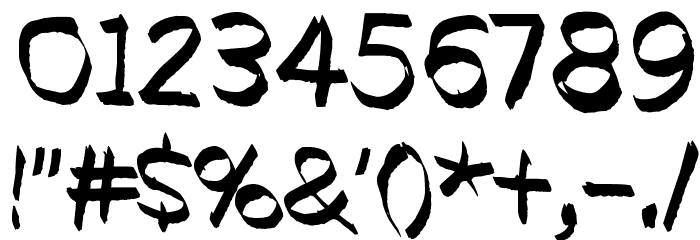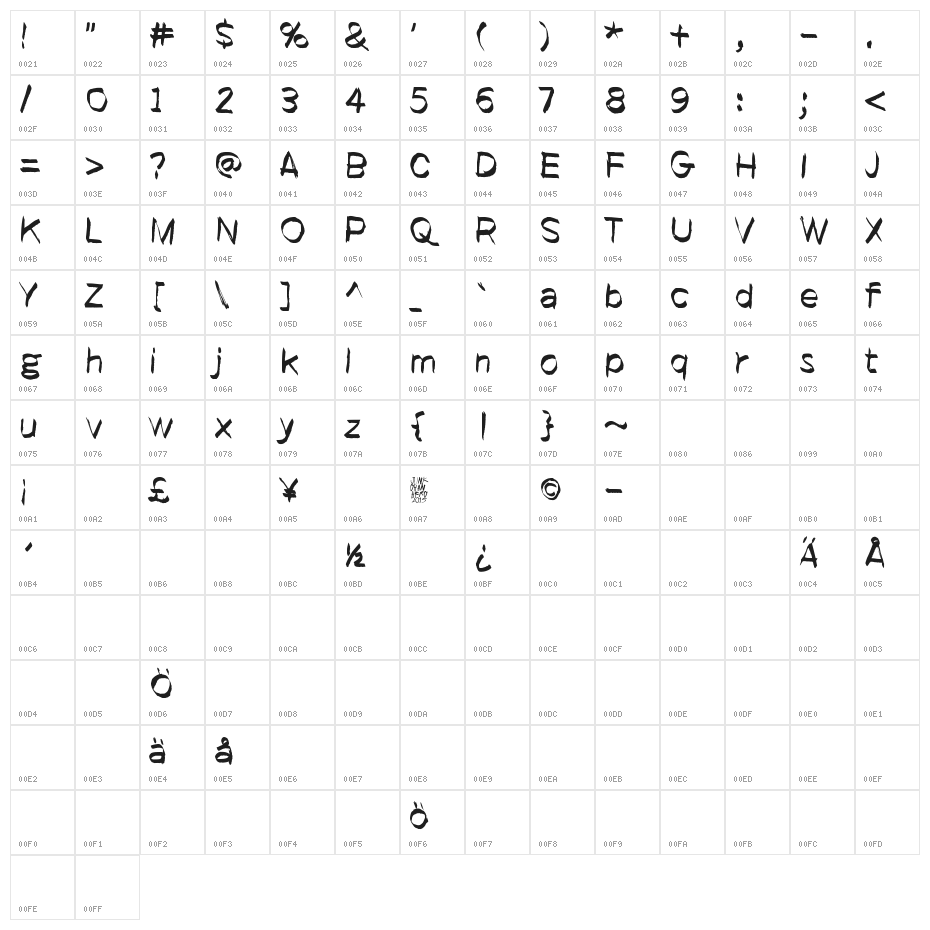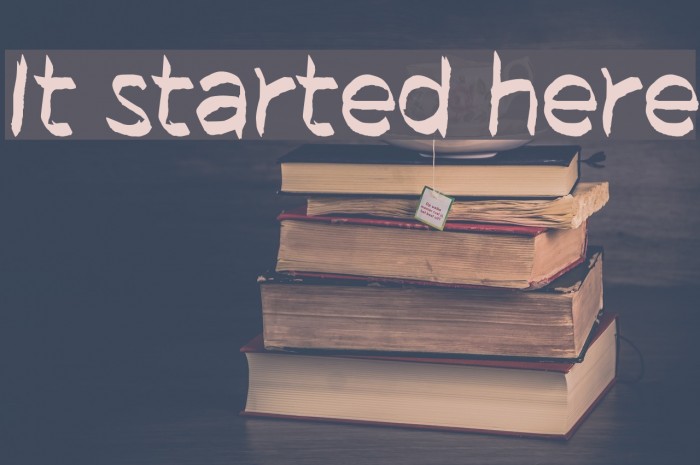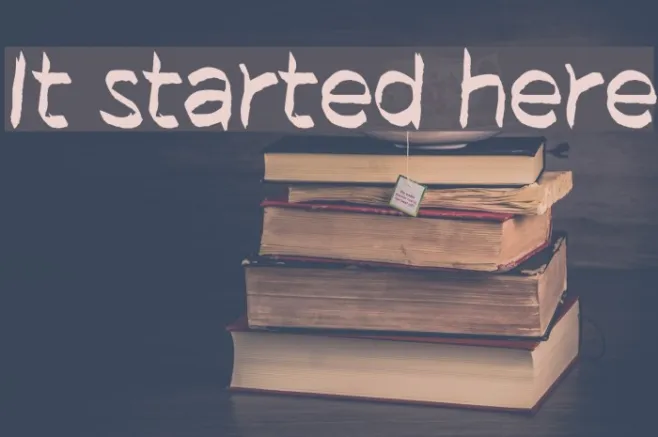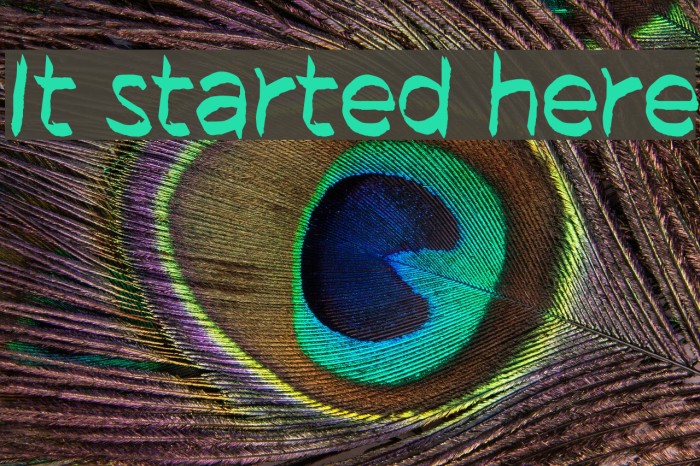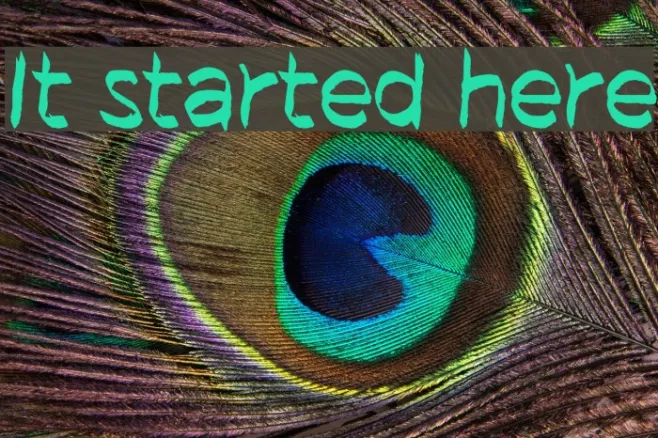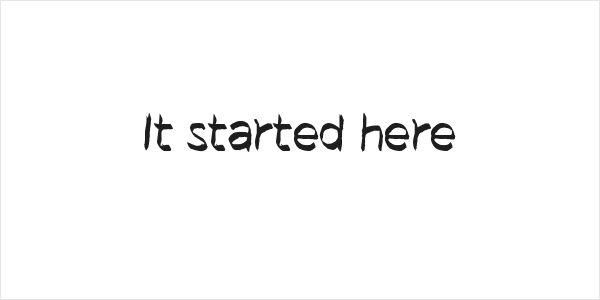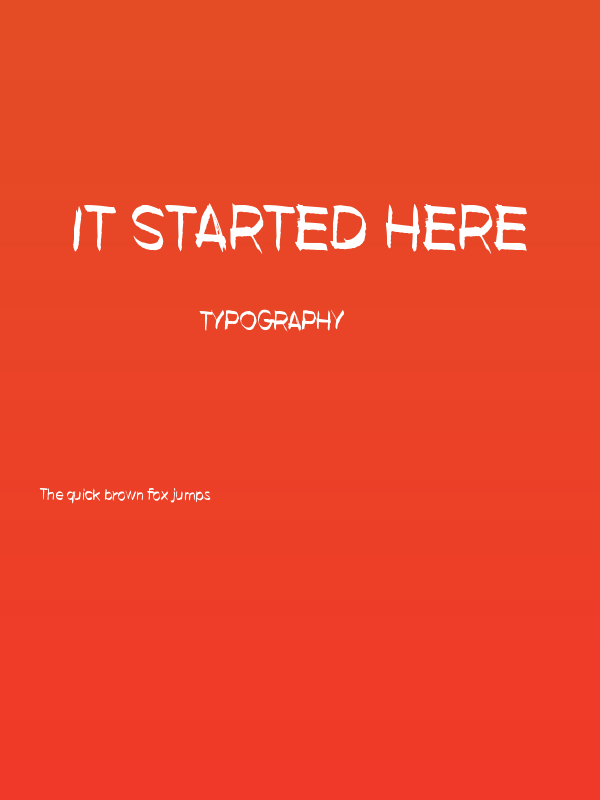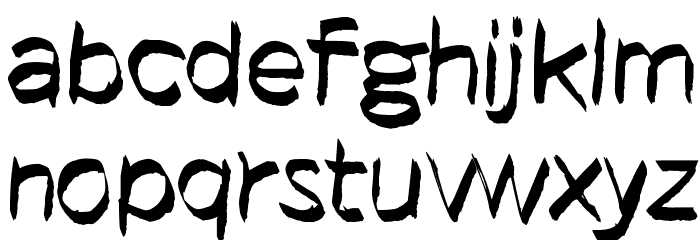
This font features a bold and expressive style with a hand-painted appearance. The strokes are uneven and dynamic, giving it a raw and artistic feel. Each character is unique, with varying thickness and a slightly rough edge, reminiscent of brush strokes. The uppercase and lowercase letters maintain a consistent style, while the numbers and special characters complement the overall aesthetic. This font is ideal for projects that require a creative and informal touch, such as posters, artistic branding, or any design that seeks to convey a sense of individuality and flair.
| Proposed Projects | Ideal for artistic branding, posters, and creative design projects. |